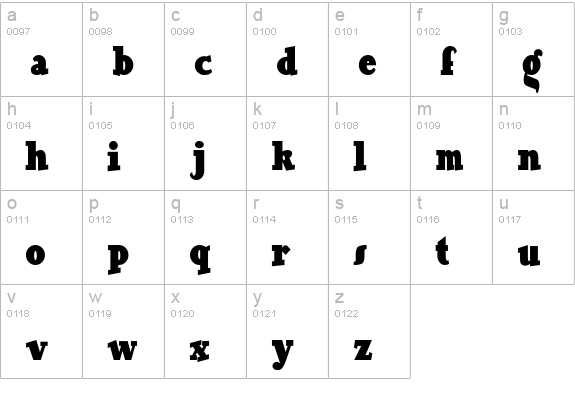
OurGang font is a charming and playful typeface that exudes a sense of whimsy and nostalgia. With its quirky, hand-drawn style and unique character designs, OurGang font is perfect for adding a touch of fun to any project. Whether you're creating greeting cards, invitations, or posters, this font will bring a lighthearted and cheerful vibe to your designs. The best part? OurGang font is completely free to download at FontsMarket.com. Simply head over to the website and get your hands on this delightful font for your next creative endeavor. Don't miss out on the opportunity to add a touch of whimsical charm to your projects with OurGang font – download it today and let your creativity shine!